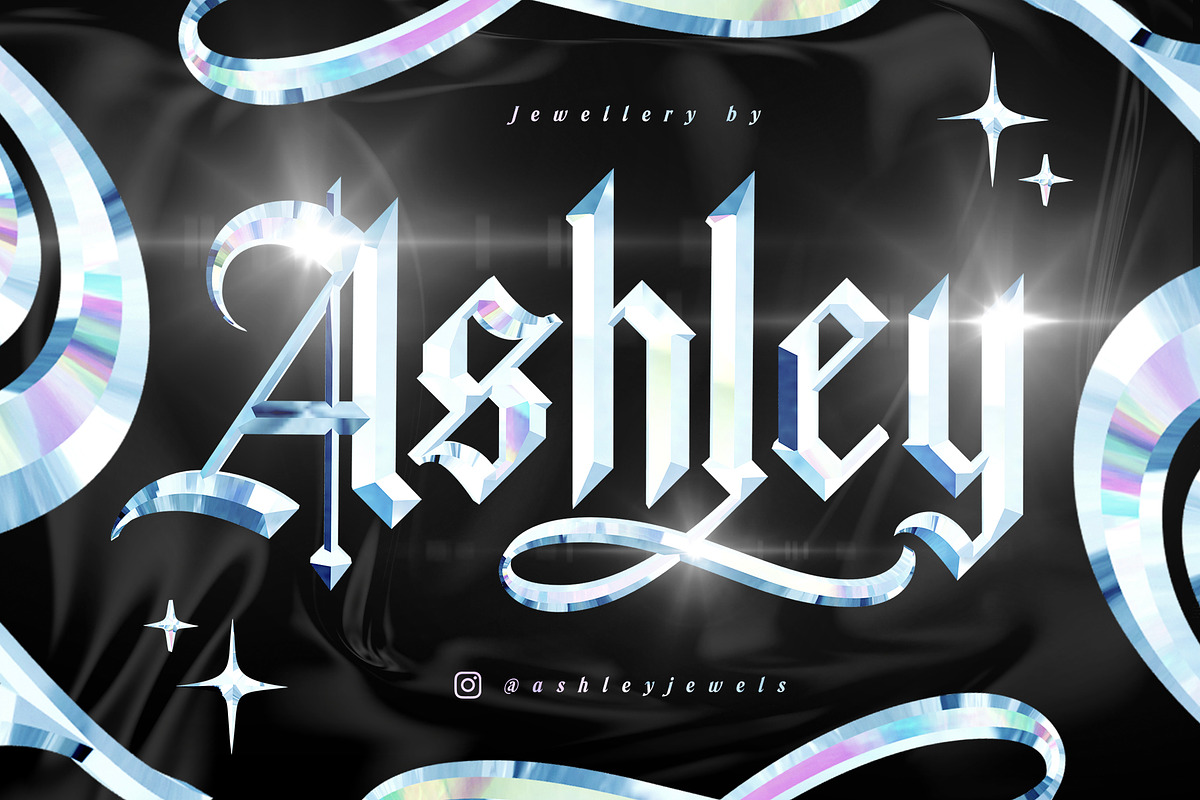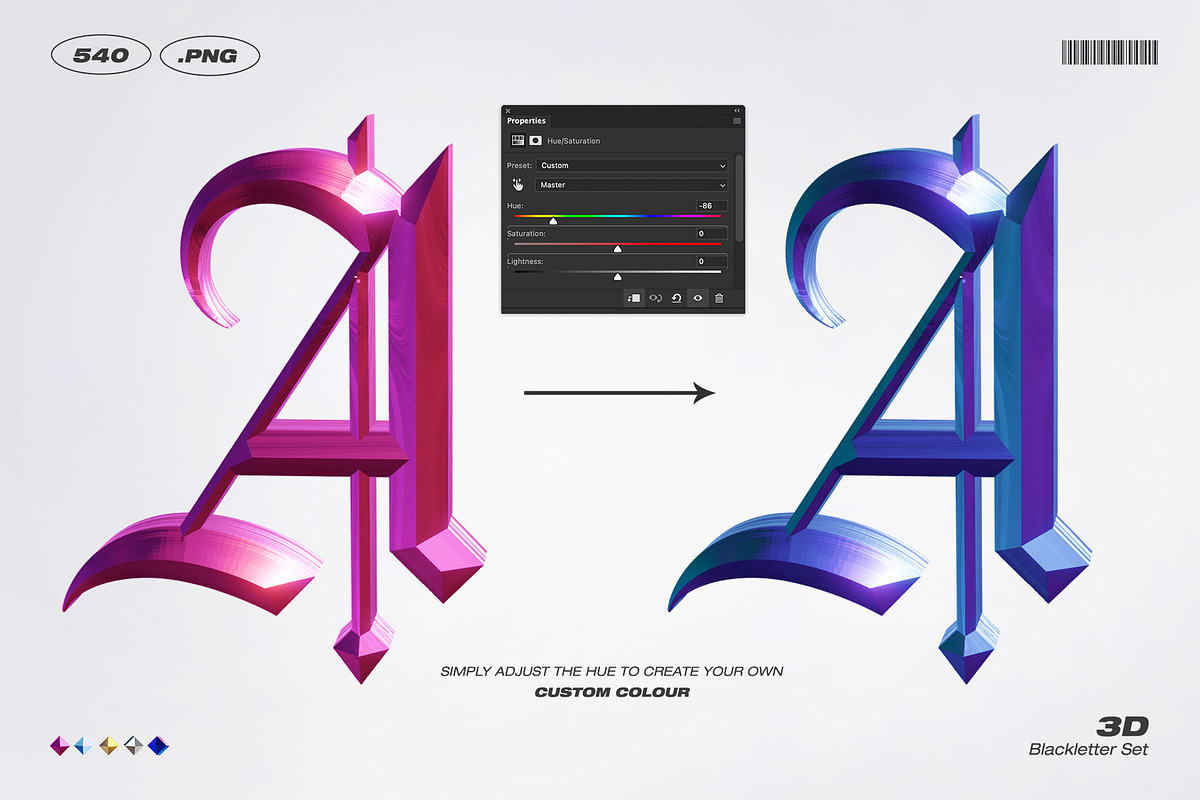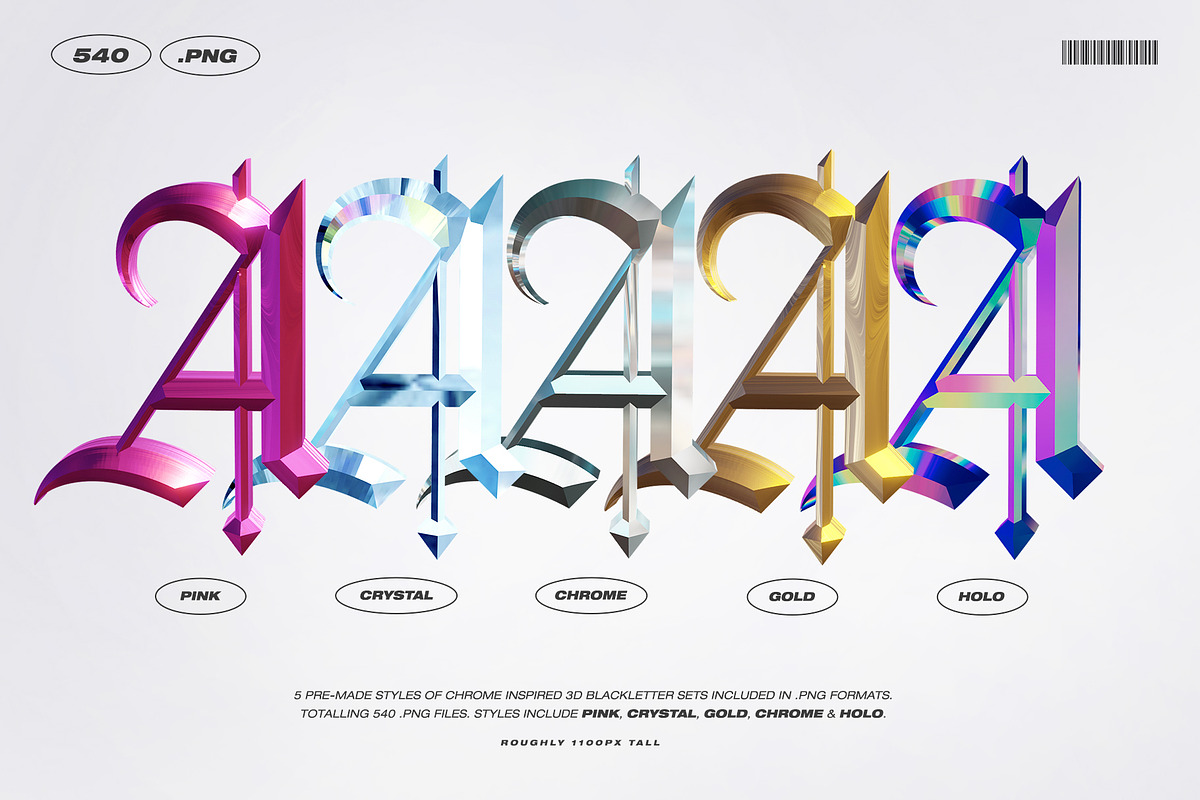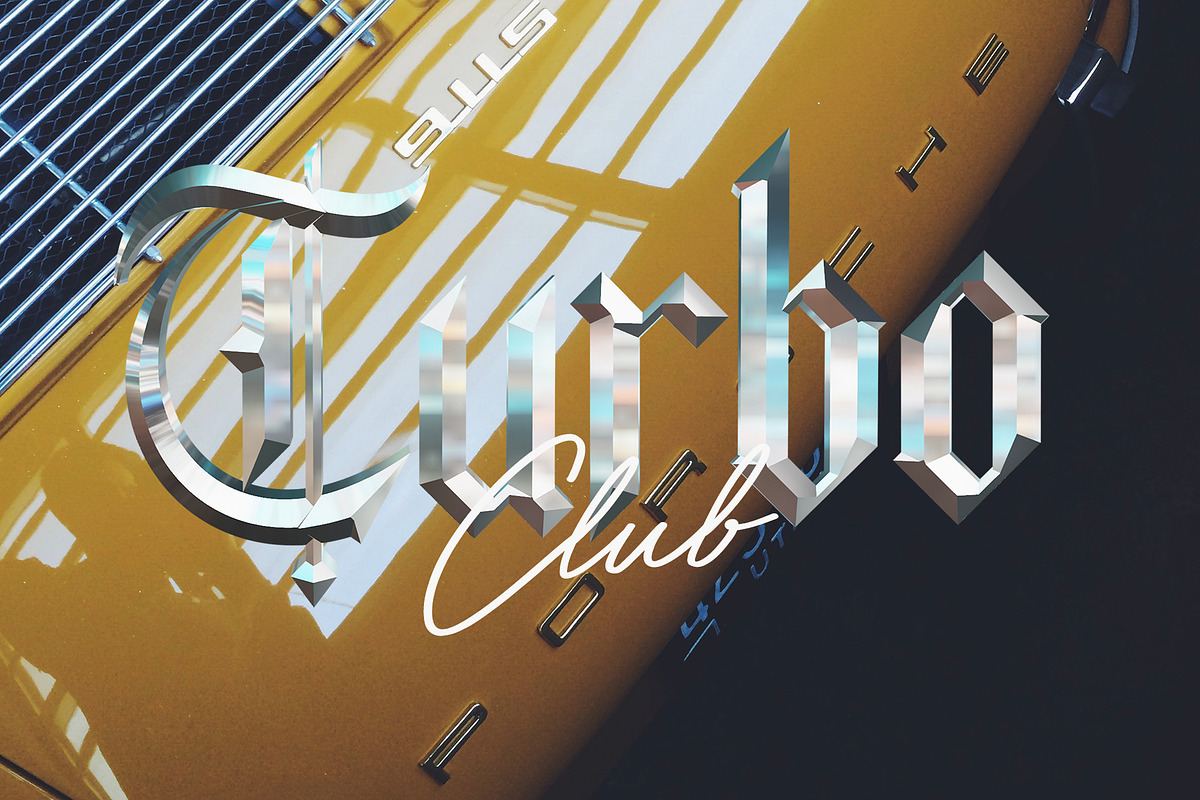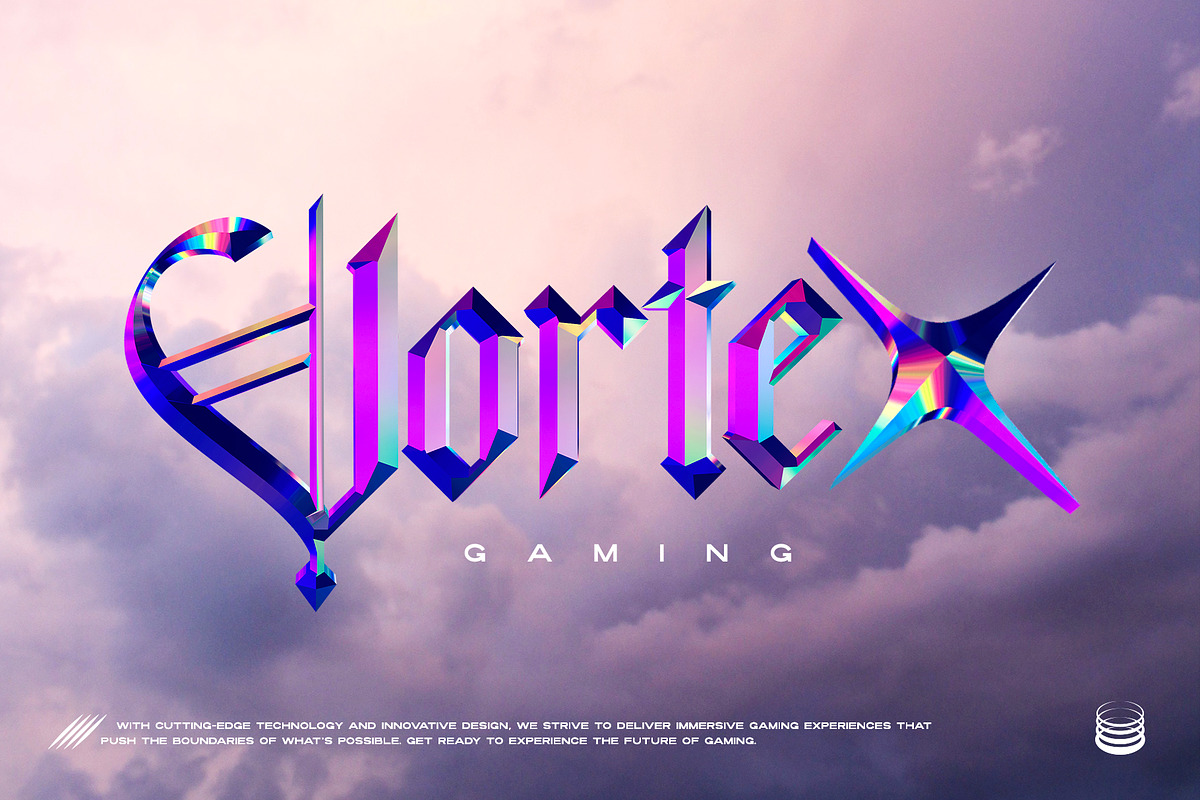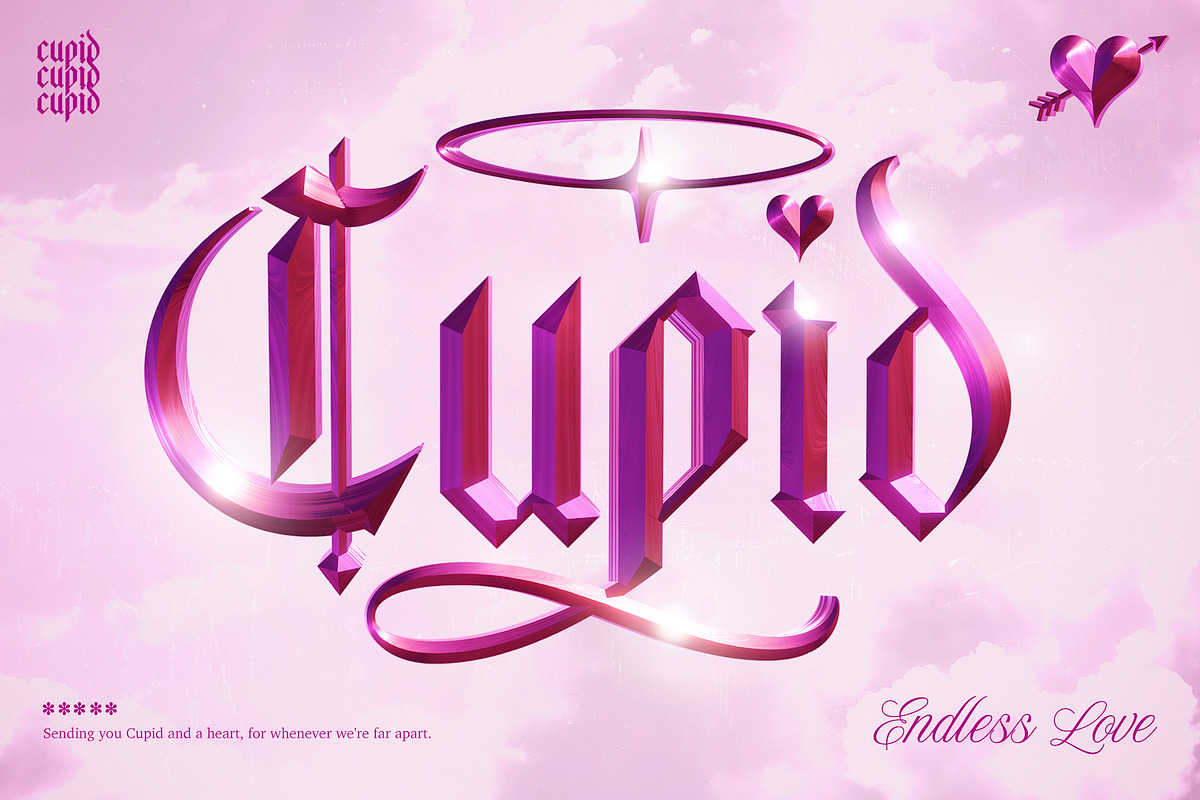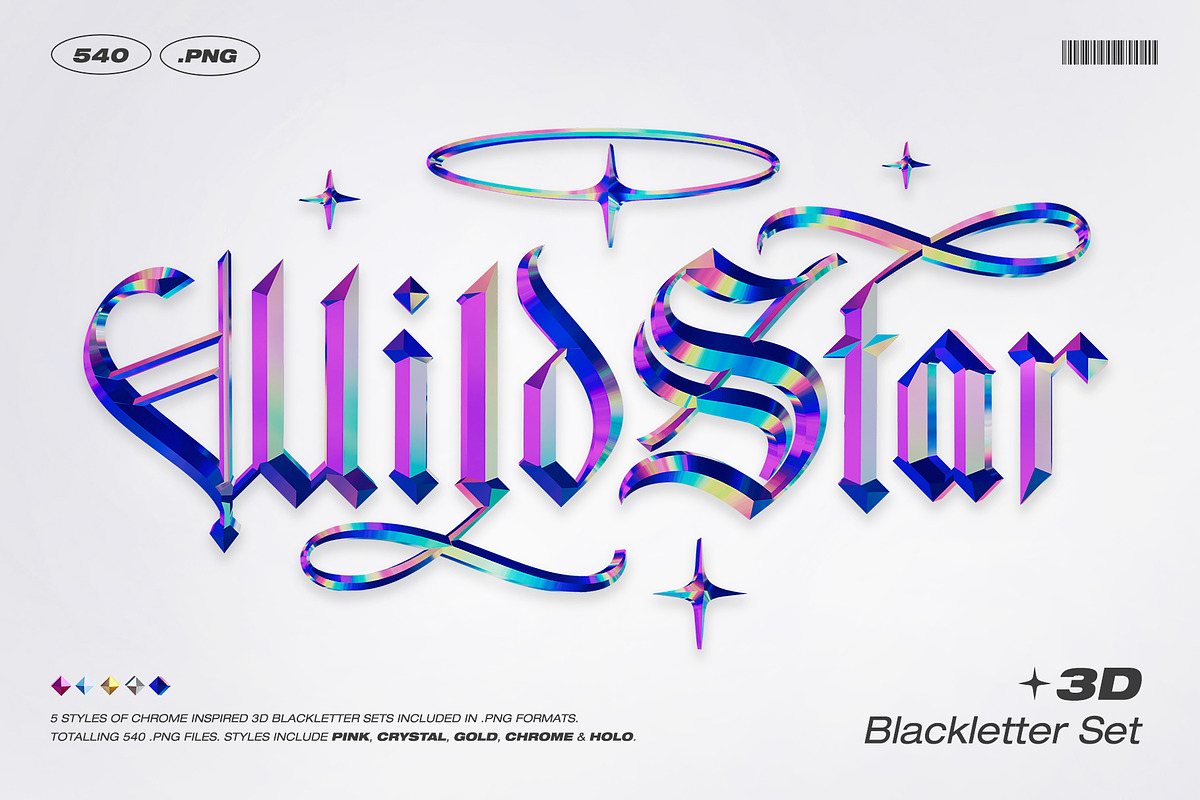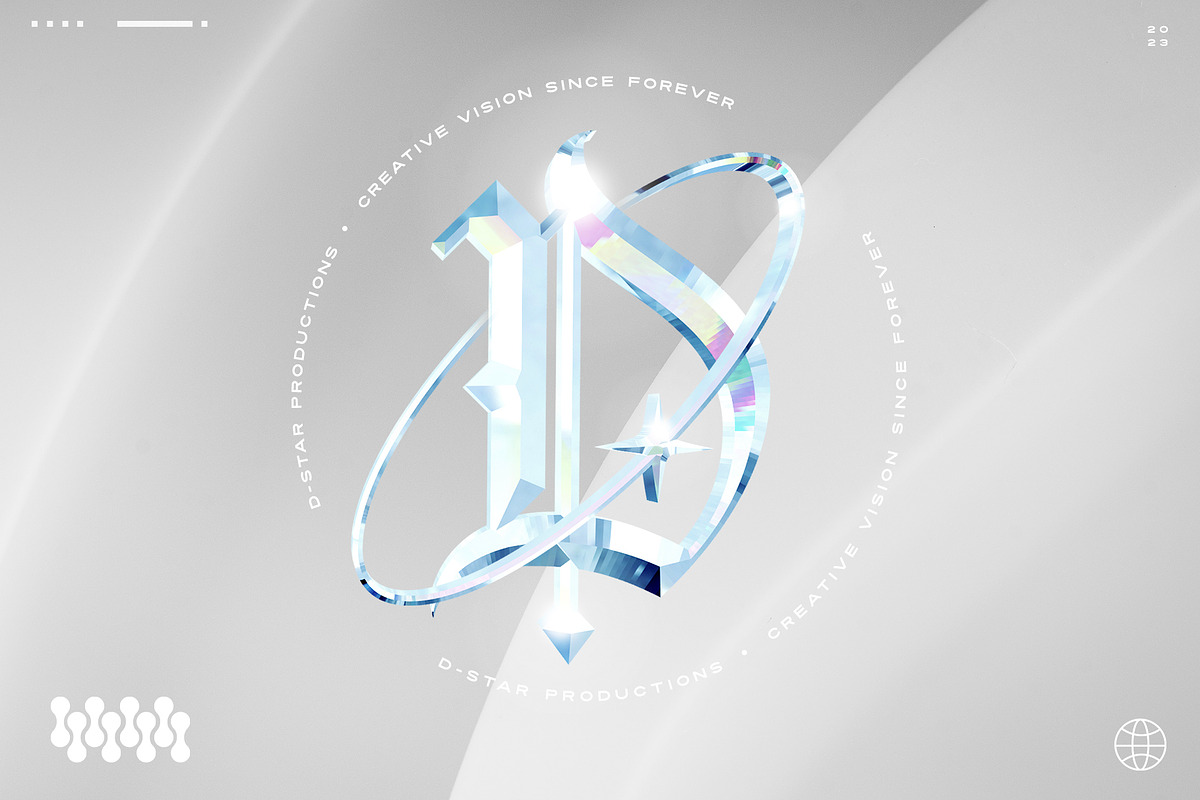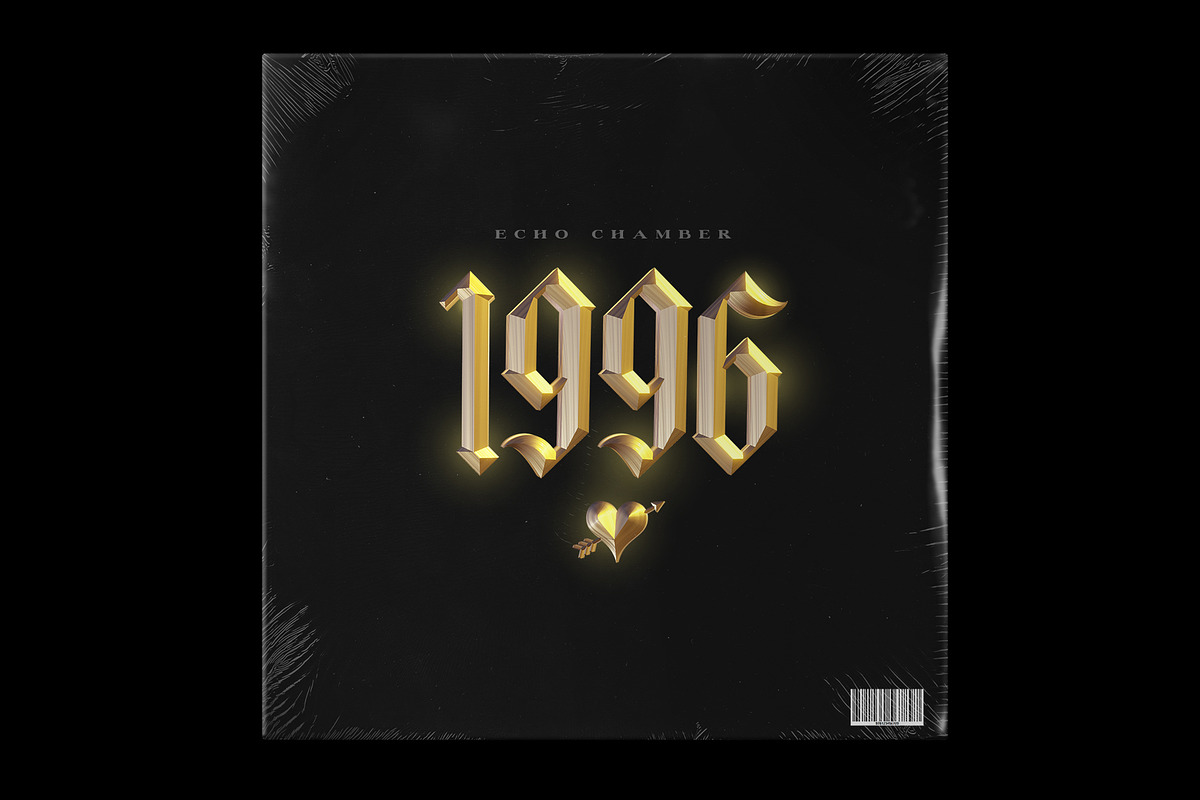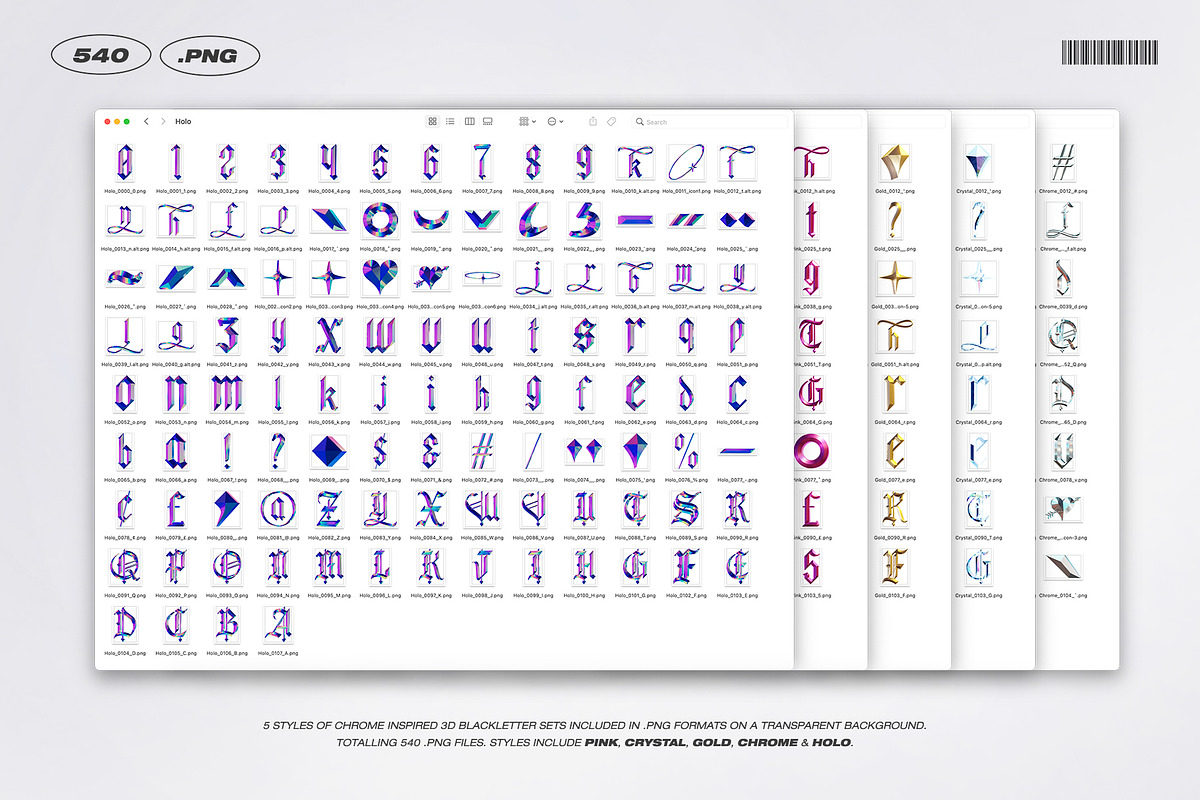
Wild Star 3D Blackletter Set
It's time to add another dimension to my popular Blackletter font Wild Star 😎
Every letter, number, punctuation & icon glyph from the Wild Star font has been remodelled with 5 different 3D chrome effects, including Pink, Crystal, Gold, Chrome & Holo. Each glyph is included as it's own separate high resolution .png image on a transparent background - that means a total of 540 .png images are included, compatible with any graphics software! Drag and drop each character into place to create stunning, sharp, stand-out display text.